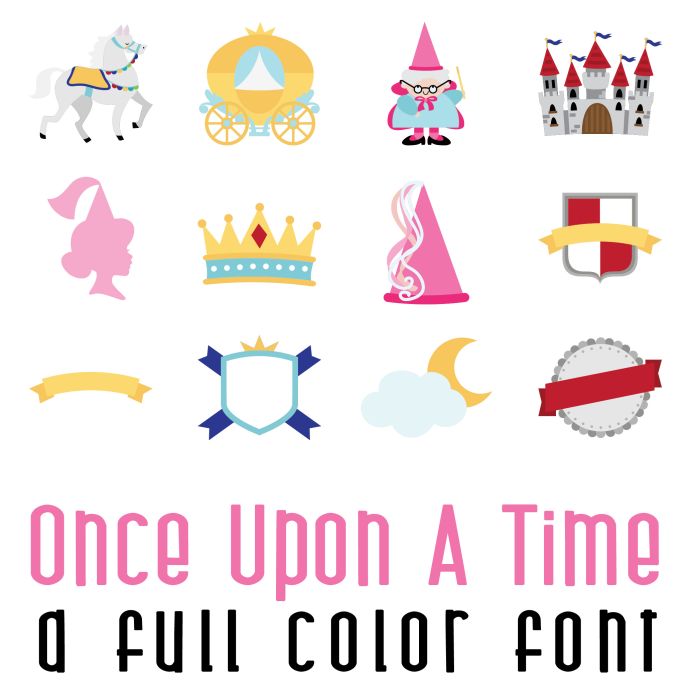
Once Upon A Time Full Color Font
A full-color font stores svg data inside an Open Type font file. This font will look black if not used in a program like Silhouette Studio which is compatible. Images can be pulled apart with some vector programs like Illustrator and cut with your cutting machine. This fun full color font features 26 cute fairytale princess themed imagery. Perfect for cards, crafts, gifts, planner stickers, scrap book pages, decor and more!